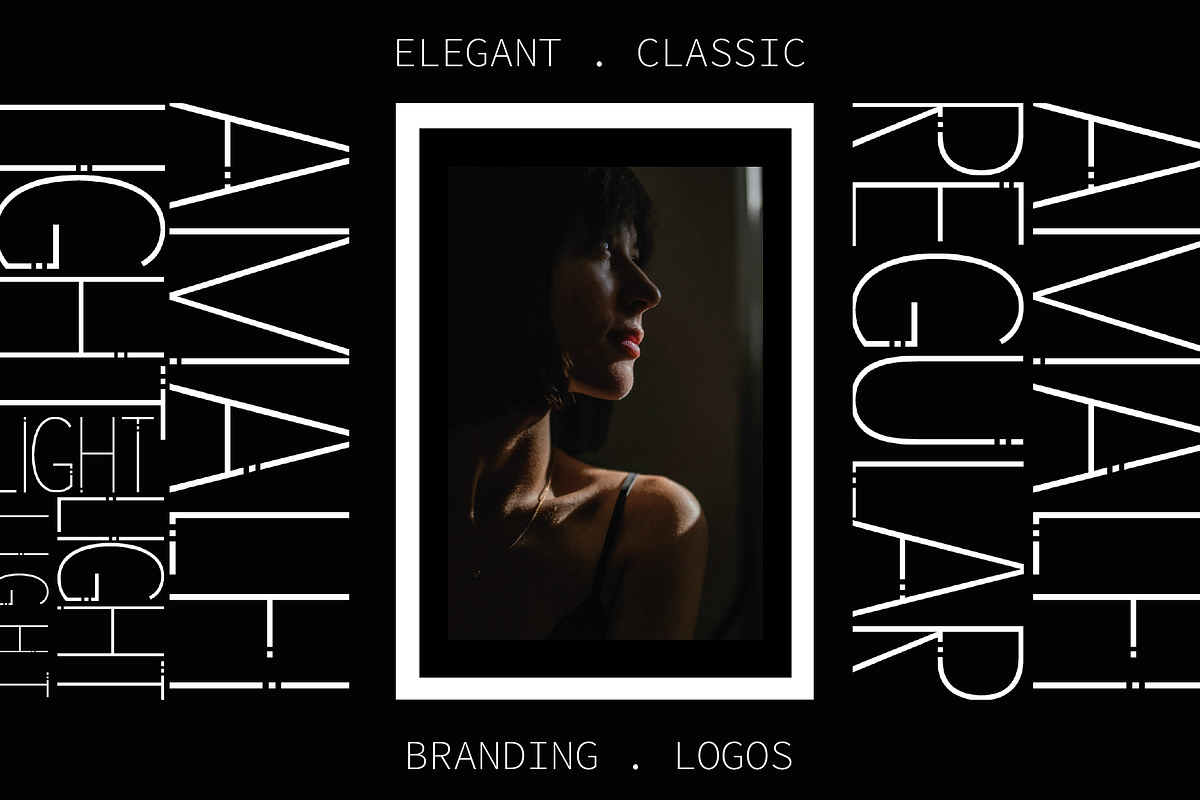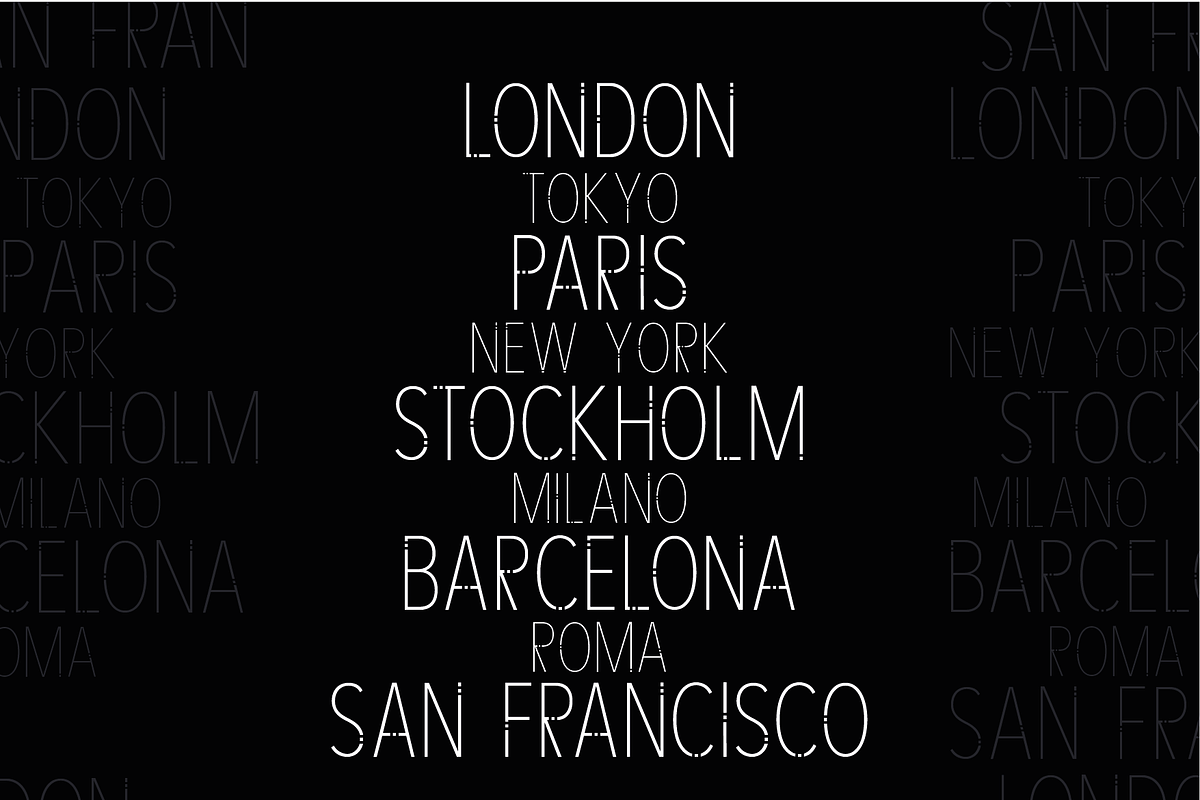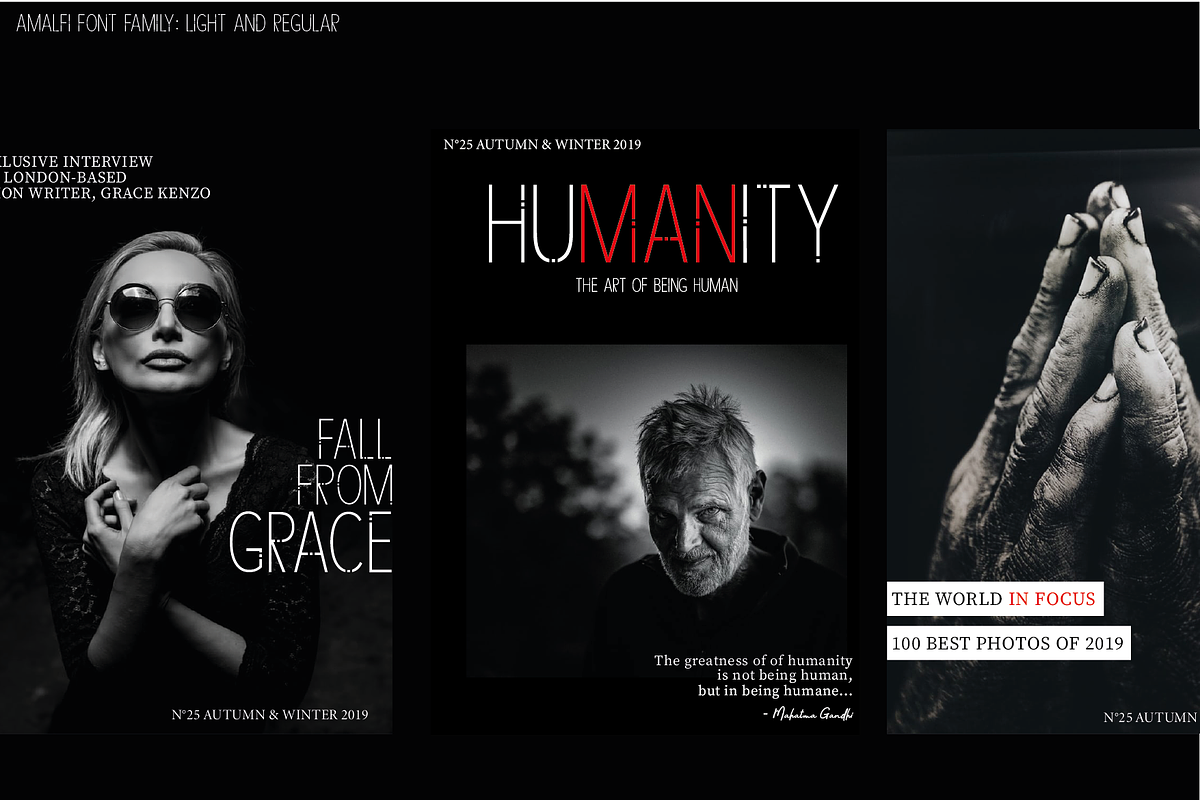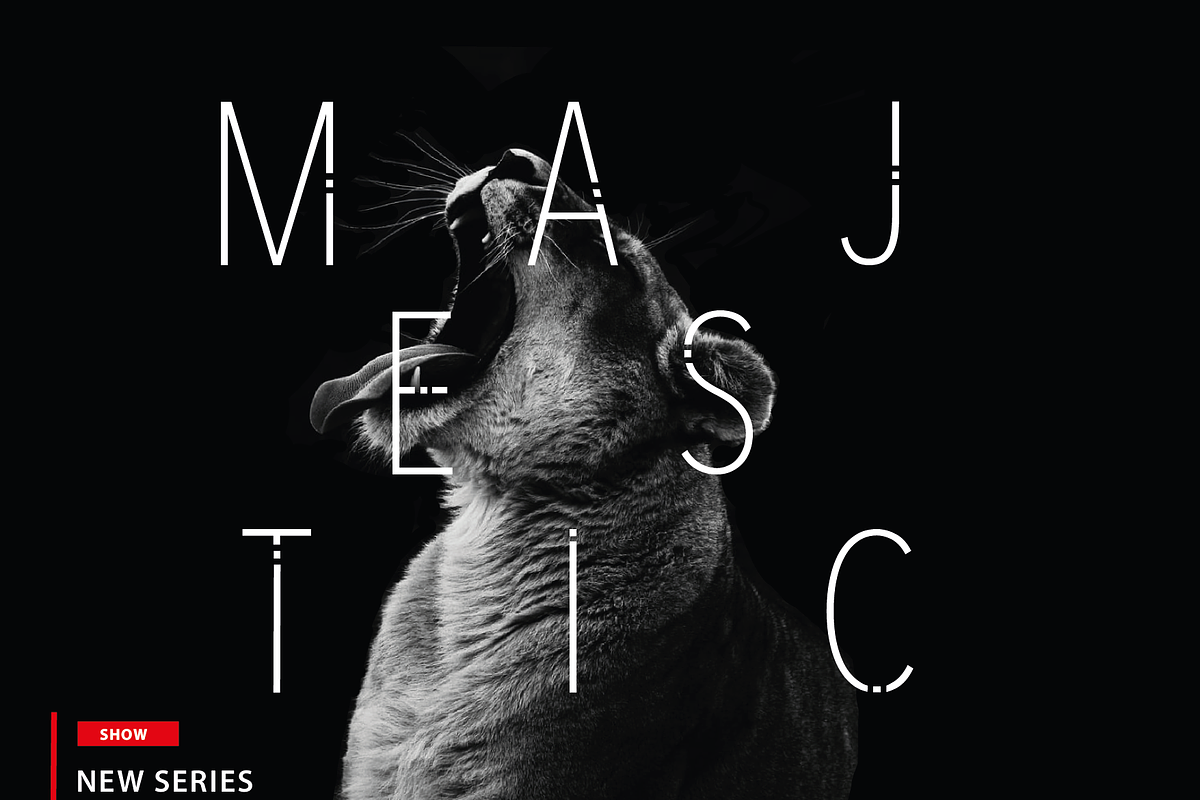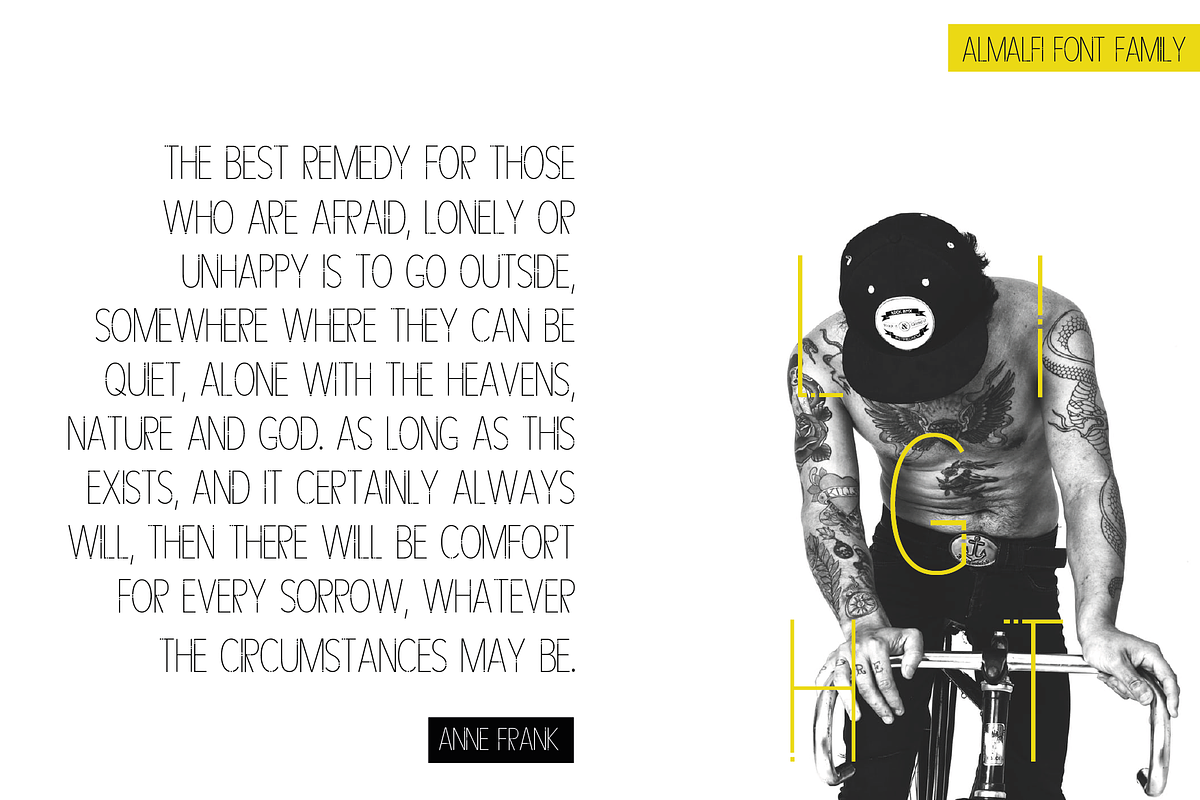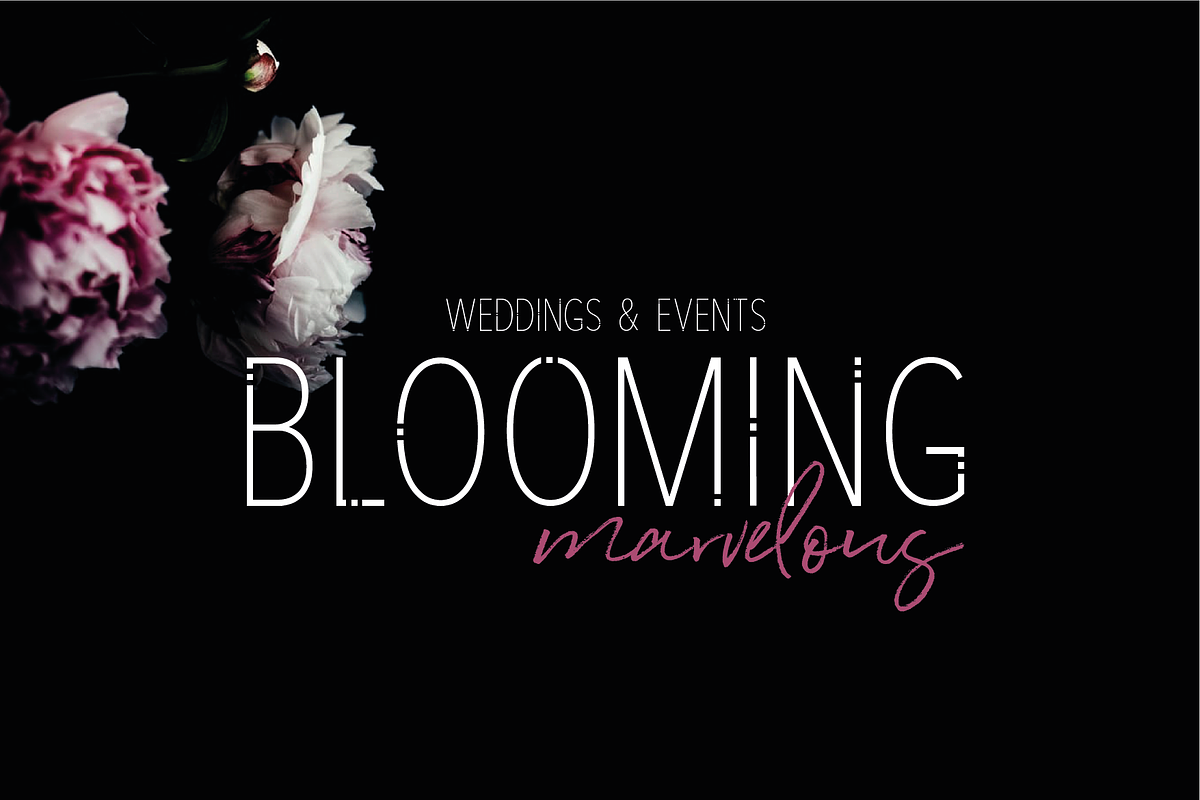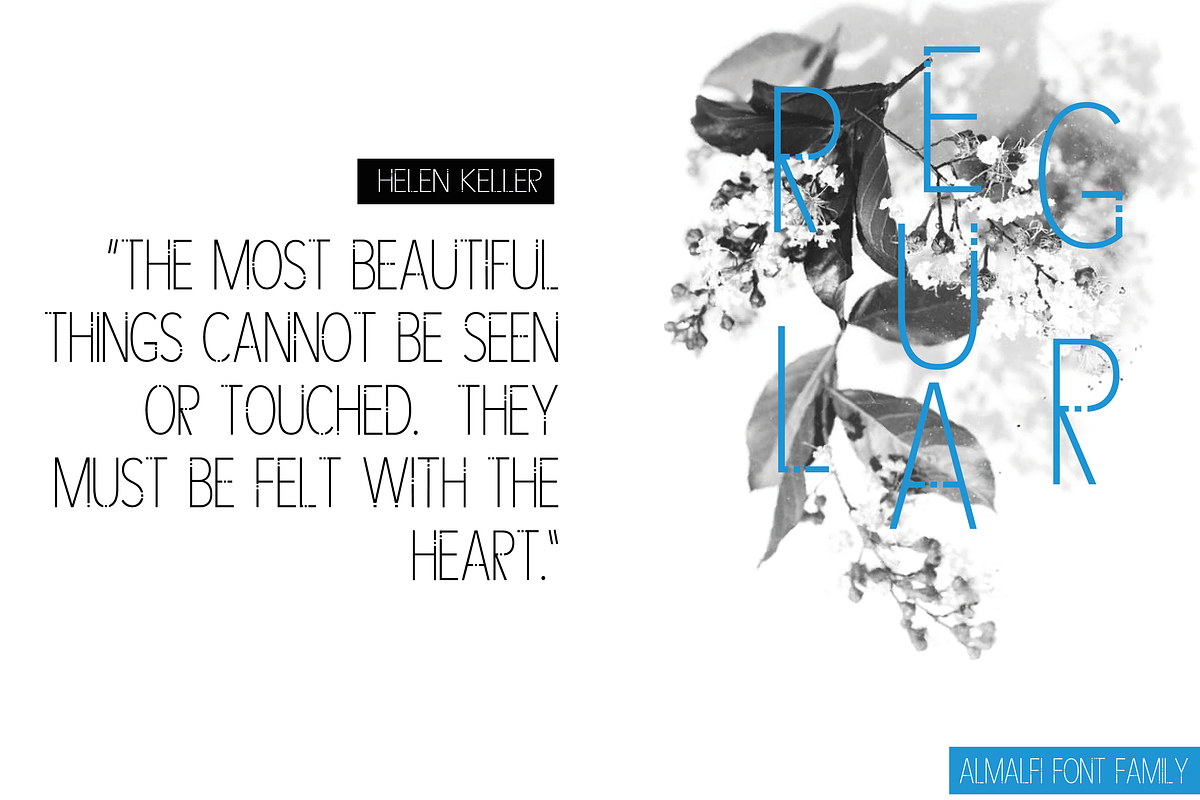
AMALFI - A Modern Font Family
Amalfi is a modern caps font family and elegant sans serif. Inspired by an art deco style, it is a simple font with crisp edges and a modern touch.
Amalfi comes in 2 weights with different design possibilities.
Amalfi works great in branding, logos, headlines, high fashion. The different weights give you full range to explore with.